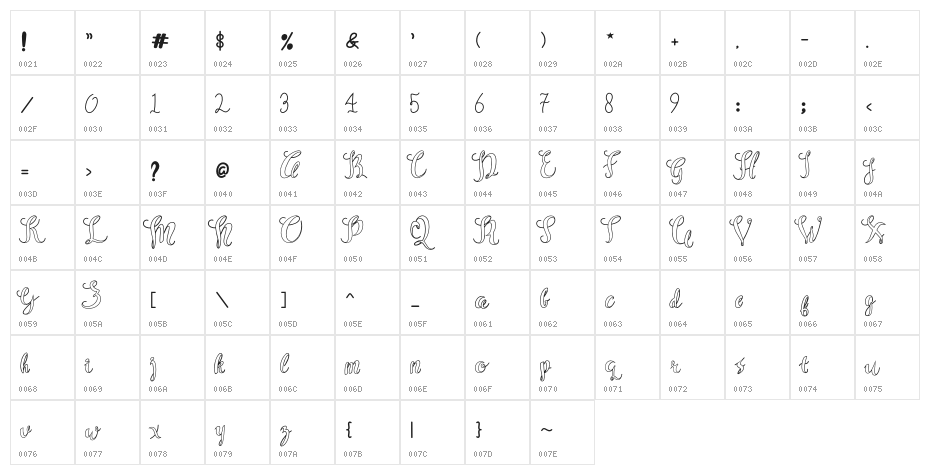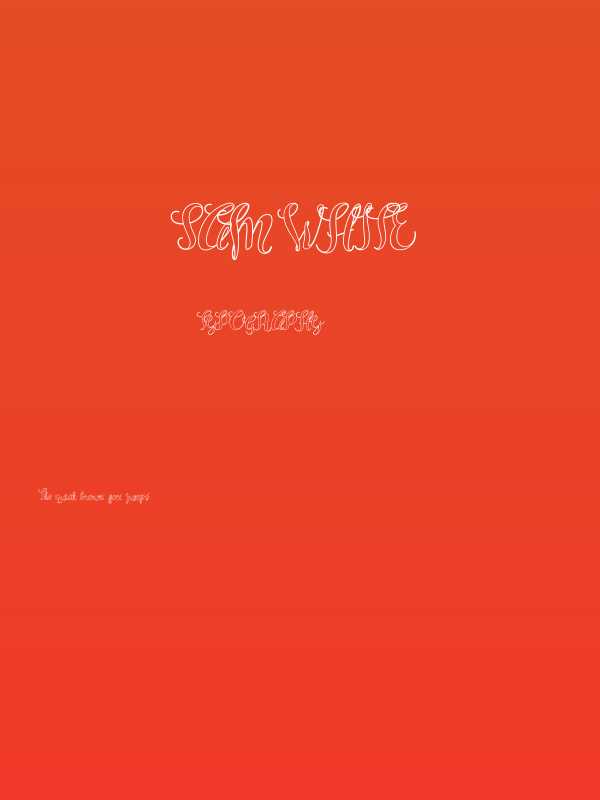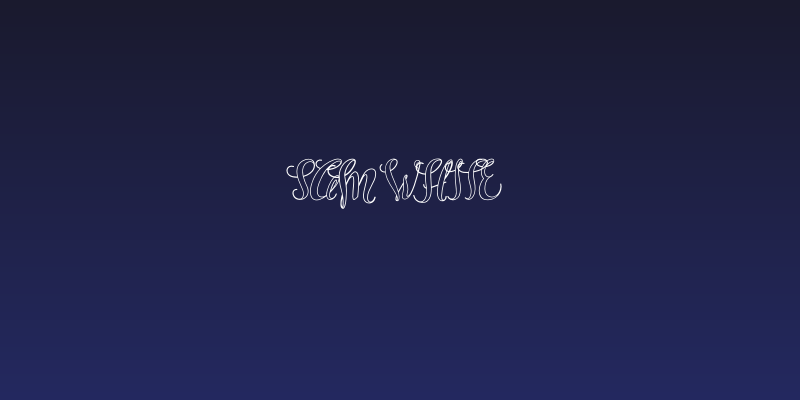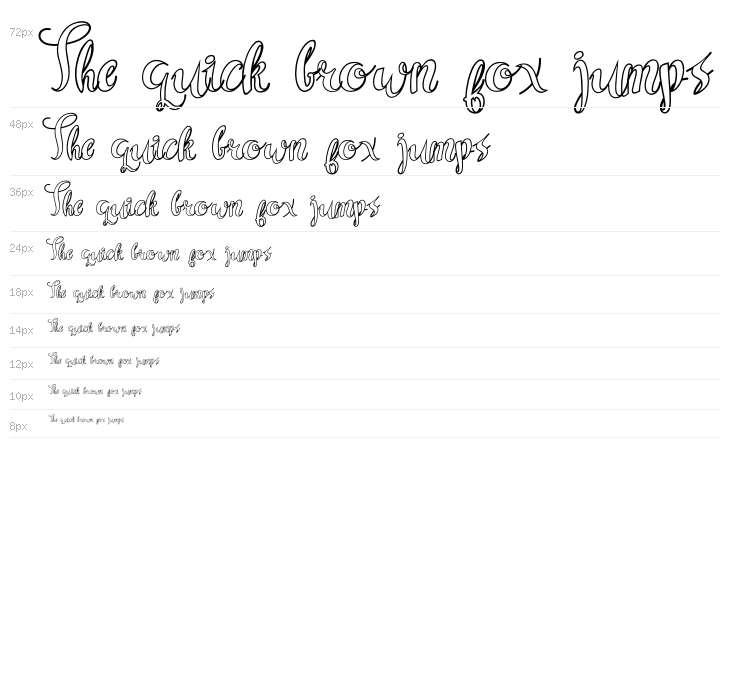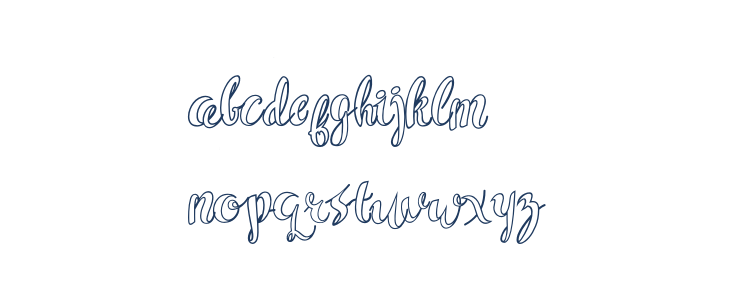
Sam White Font
Sam White Description
This font features an elegant and flowing script style with a whimsical touch. The characters are intricately designed with loops and curves that give a sense of movement and fluidity. Uppercase letters are particularly ornate, with elaborate swirls and flourishes that add a decorative flair. The lowercase letters maintain a consistent style, though they are slightly more restrained, ensuring readability. Numbers and special characters are crafted to match the overall aesthetic, with a playful yet sophisticated appearance. This font's unique style makes it suitable for creative and artistic projects.
Use CaseLogos, Invitations, Artistic projects
Proposed ProjectsIdeal for wedding invitations, greeting cards, branding, and artistic posters.